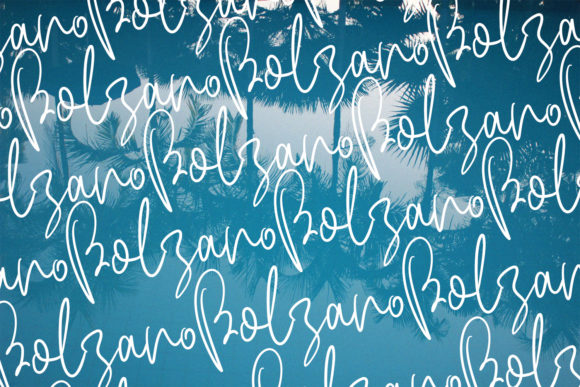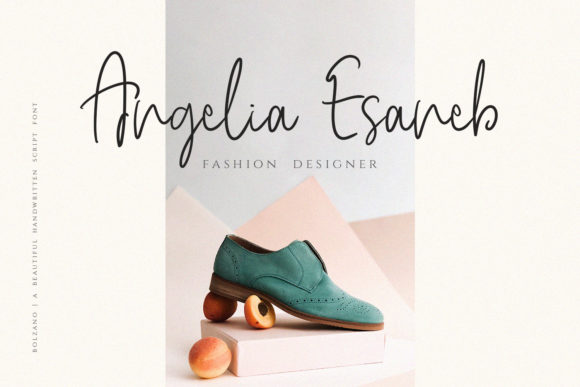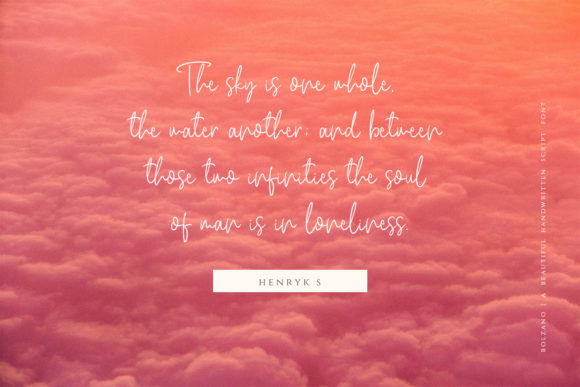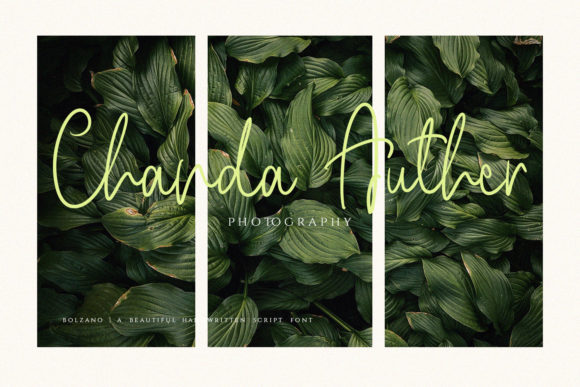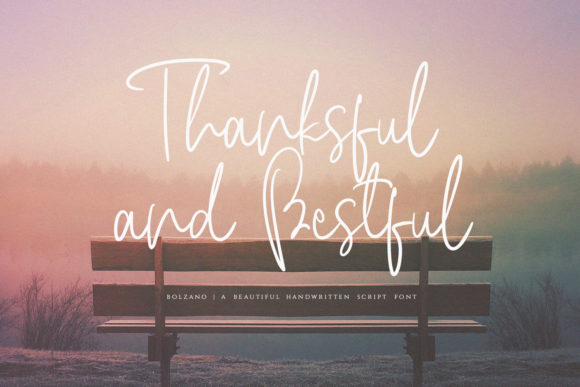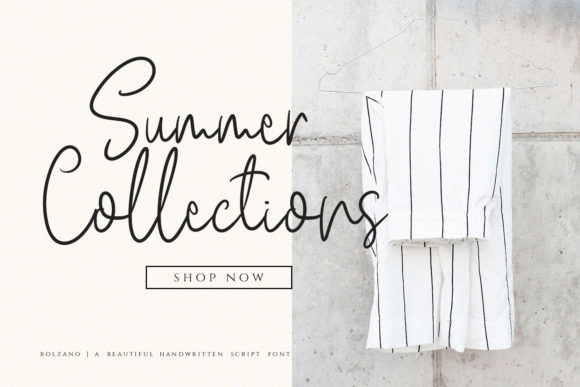
Bolzano Font: Elevate Your Design with a Beautiful Handwritten Style
Bolzano is a stunning and light handwritten font that can instantly transform any design project into a standout creation. With its amazing feel and elegant appearance, this font is perfect for designers and crafters looking to add a touch of sophistication and personality to their work.
The Characteristics of Bolzano Font
Bolzano is a carefully crafted handwritten font that boasts a range of desirable characteristics. Its light and airy feel makes it perfect for use in a variety of design projects, from elegant branding and packaging to beautiful stationery and digital media. The font’s handwritten style gives it a unique and personal touch, making it ideal for designers who want to add a human element to their work.
Why Choose Bolzano Font?
- Unique and eye-catching: Bolzano’s distinctive handwritten style sets it apart from more traditional fonts, making it perfect for designers who want to create something truly unique and memorable.
- Versatile: This font is incredibly versatile, and can be used in a wide range of design projects, from elegant and sophisticated to playful and whimsical.
- Elegant and refined: Bolzano’s light and airy feel gives it an undeniably elegant and refined appearance, making it perfect for use in high-end branding and packaging.
- Easy to read: Despite its elegant appearance, Bolzano is incredibly easy to read, making it perfect for use in body text and other applications where legibility is key.
How to Use Bolzano Font in Your Design Projects
- Pair it with bold fonts: Bolzano’s light and airy feel makes it the perfect companion to bold and chunky fonts. Try pairing it with a bold sans-serif font for a striking contrast.
- Use it for headlines: Bolzano’s elegant appearance makes it perfect for use in headlines and titles. Try using it to add a touch of sophistication to your design projects.
- Add some color: Bolzano looks stunning in a range of colors, from soft pastels to rich jewel tones. Try experimenting with different colors to find the perfect look for your design project.
The Benefits of Using Handwritten Fonts like Bolzano
Handwritten fonts like Bolzano offer a range of benefits for designers and crafters. Here are just a few:
- Personal touch: Handwritten fonts add a personal touch to design projects, making them feel more unique and human.
- Emotional connection: Handwritten fonts can create an emotional connection with the viewer, making them feel more engaged and invested in the design.
- Flexibility: Handwritten fonts can be used in a wide range of design projects, from elegant and sophisticated to playful and whimsical.
Bolzano font is a beautiful and light handwritten font that can instantly elevate any design project into a standout creation. With its elegant appearance, versatile style, and range of benefits, it’s the perfect choice for designers and crafters looking to add a touch of sophistication and personality to their work. Whether you’re creating elegant branding and packaging or beautiful stationery and digital media, Bolzano font is sure to impress.